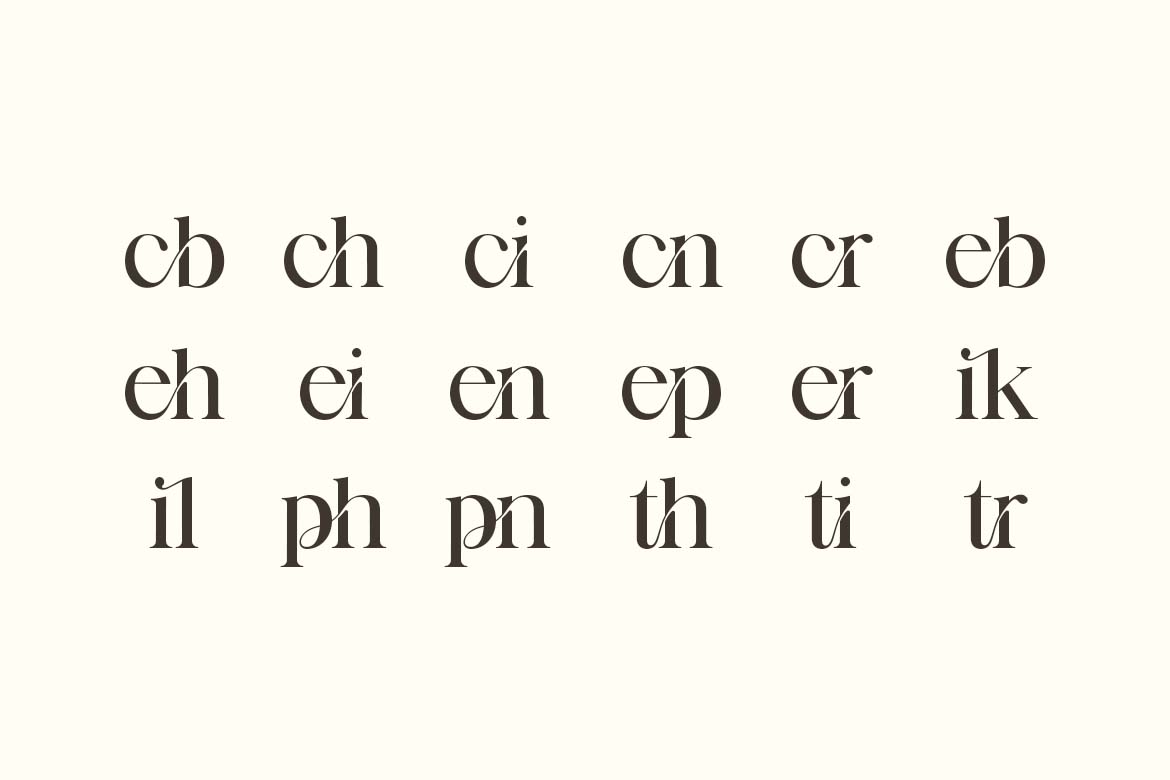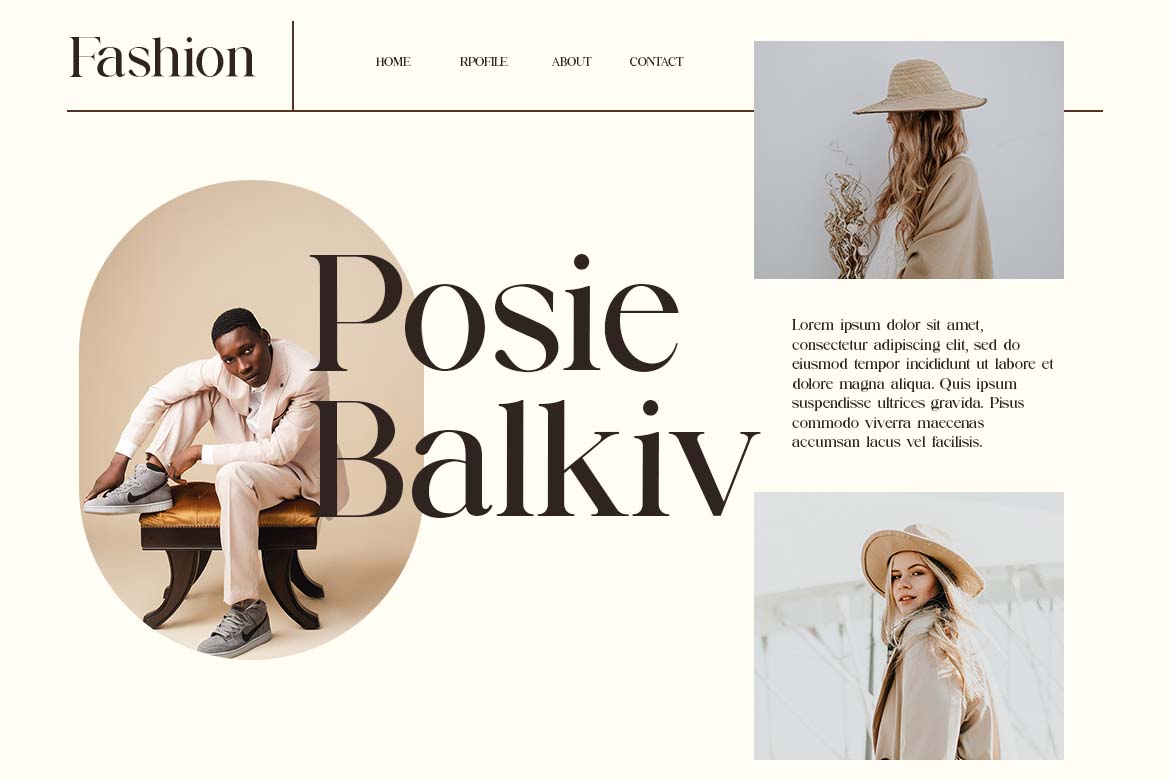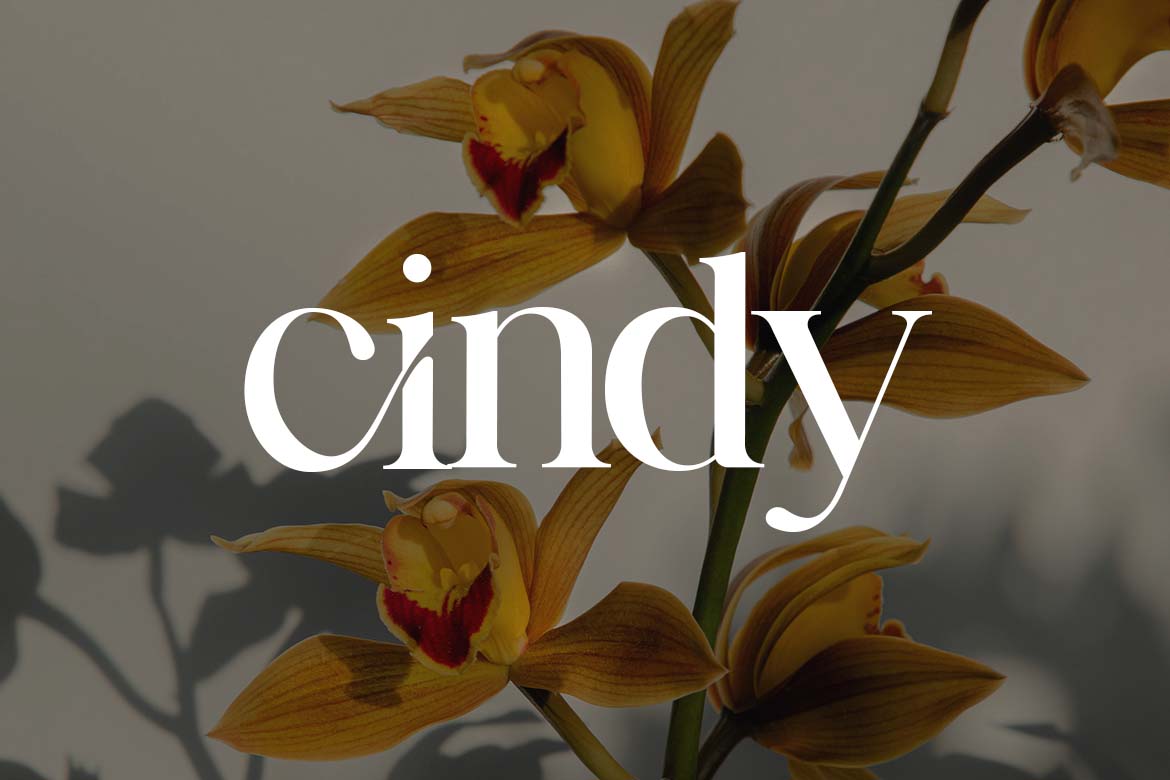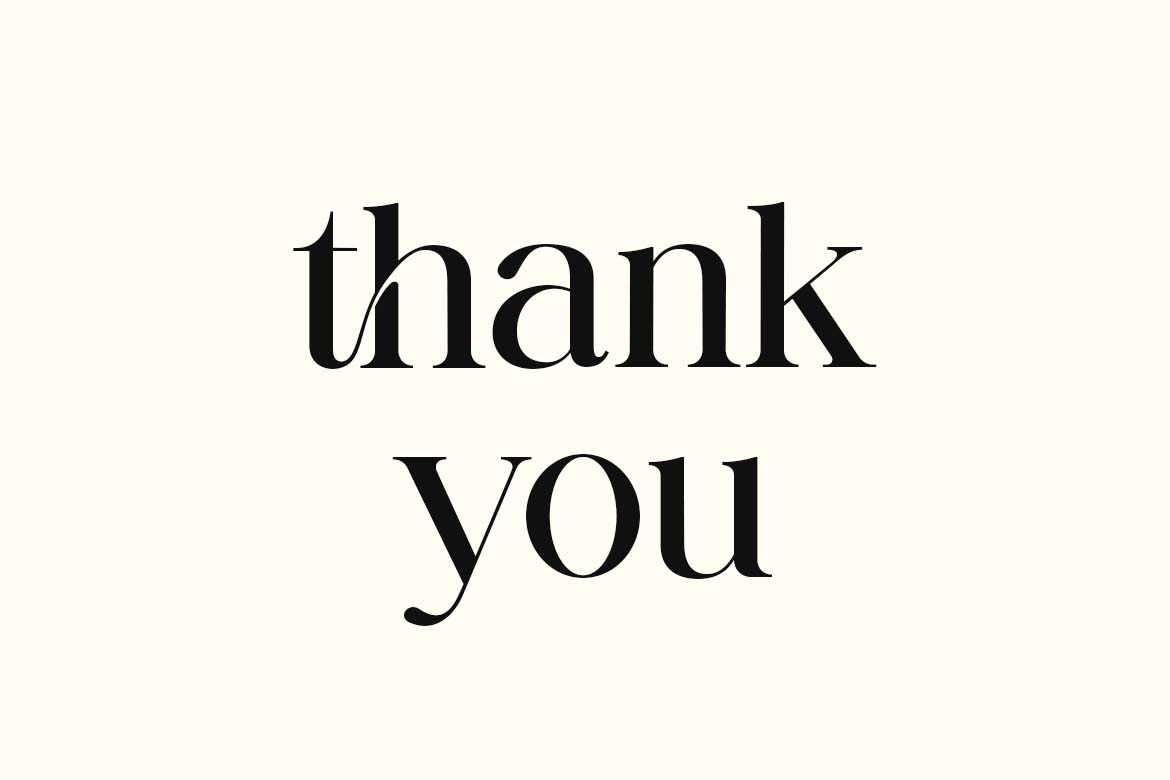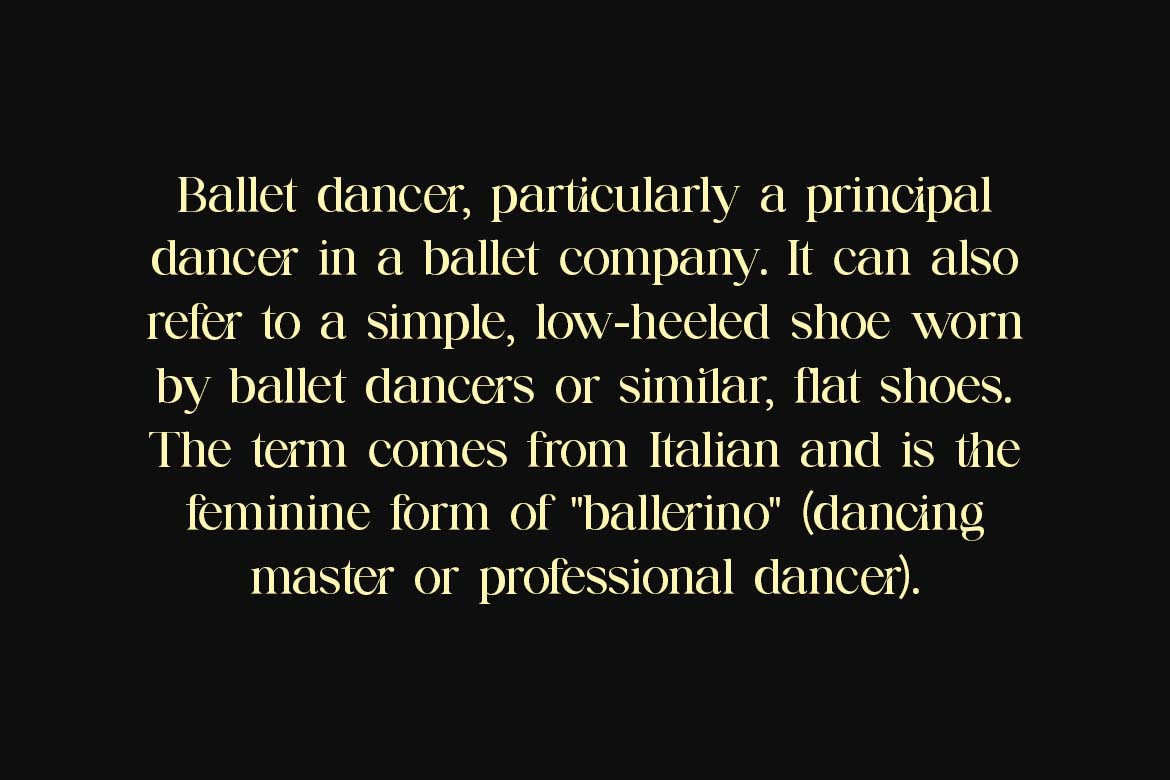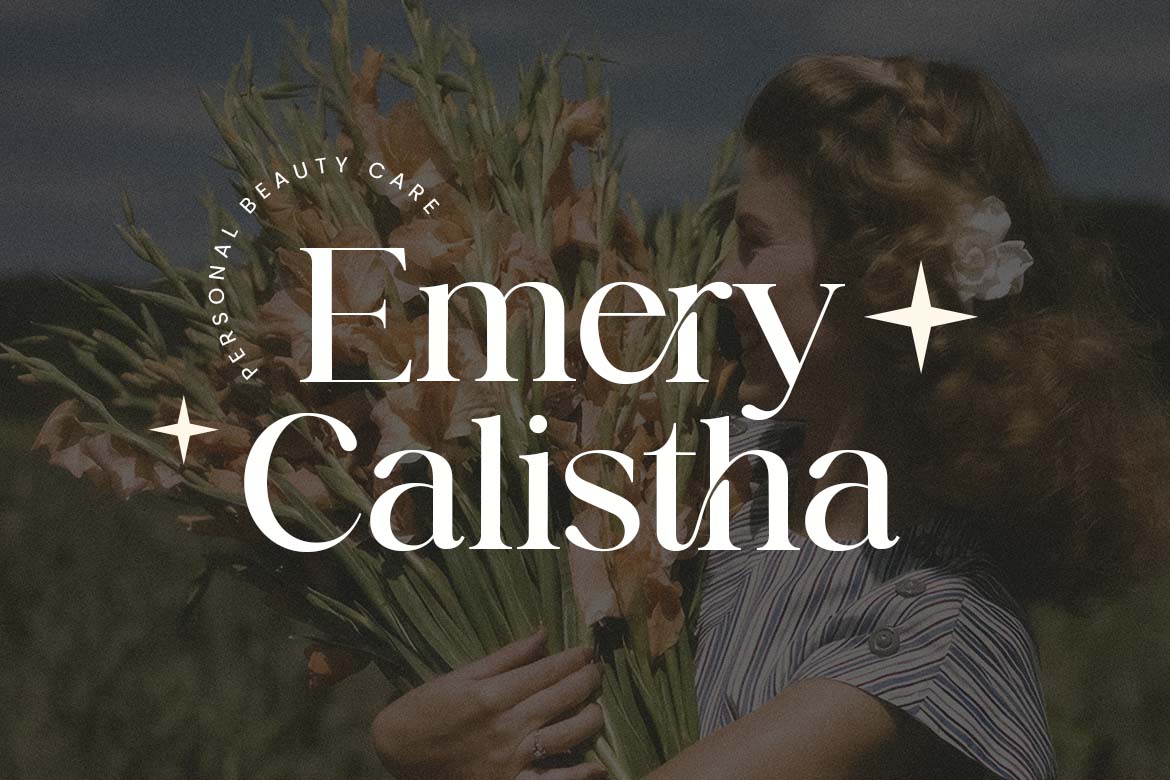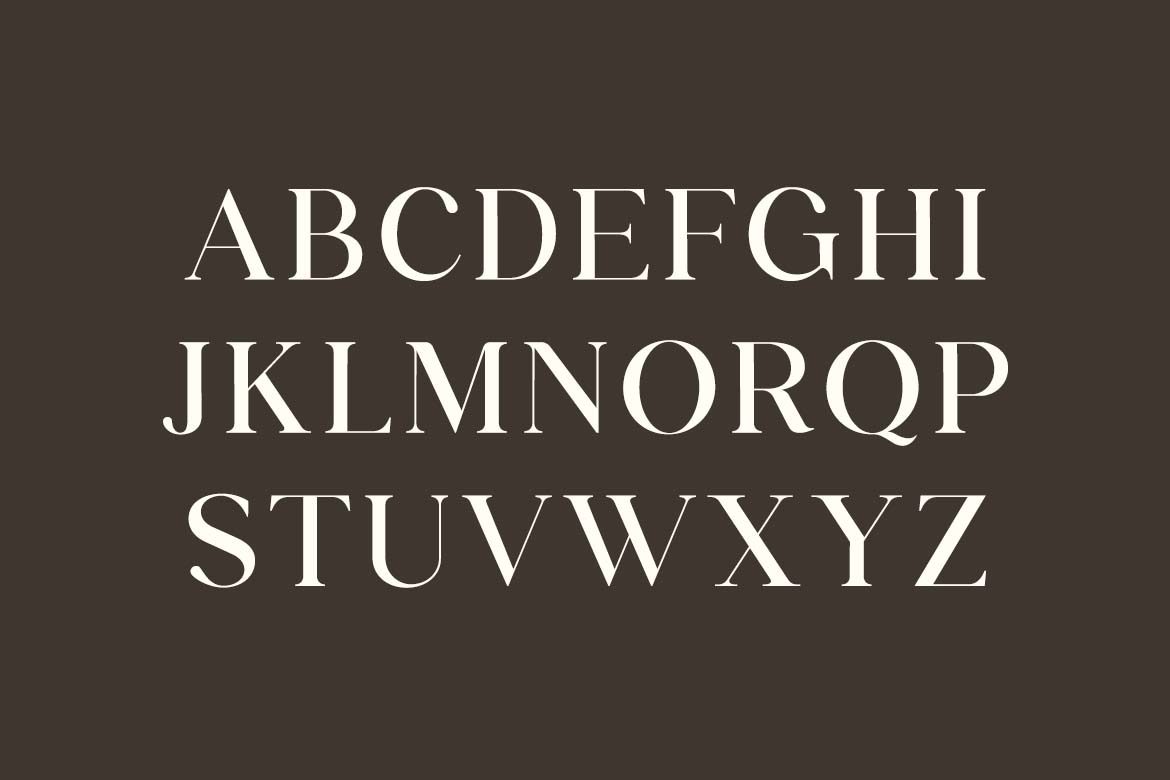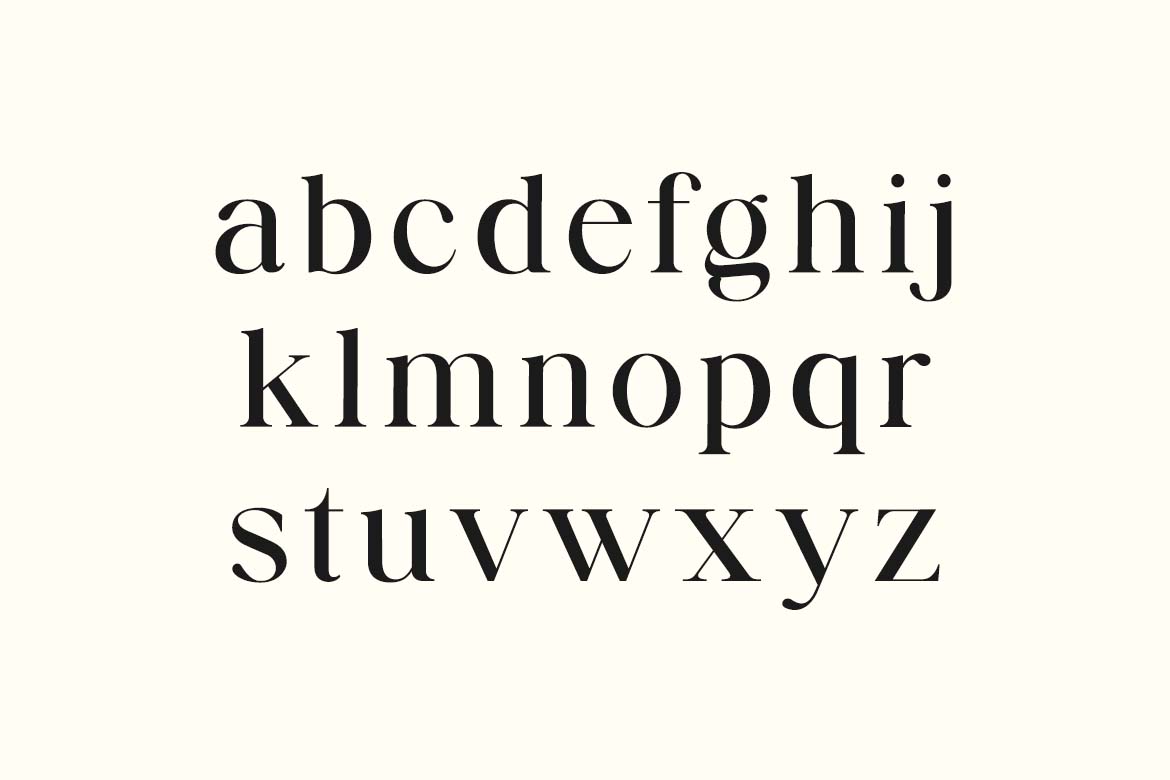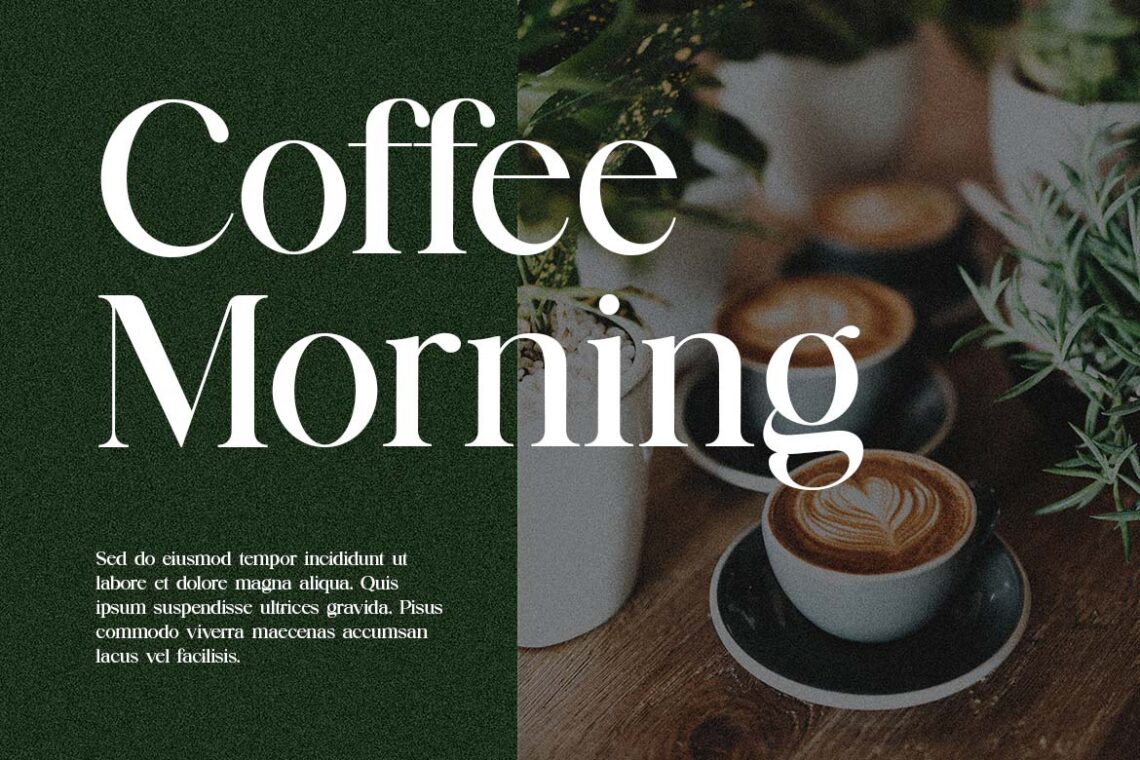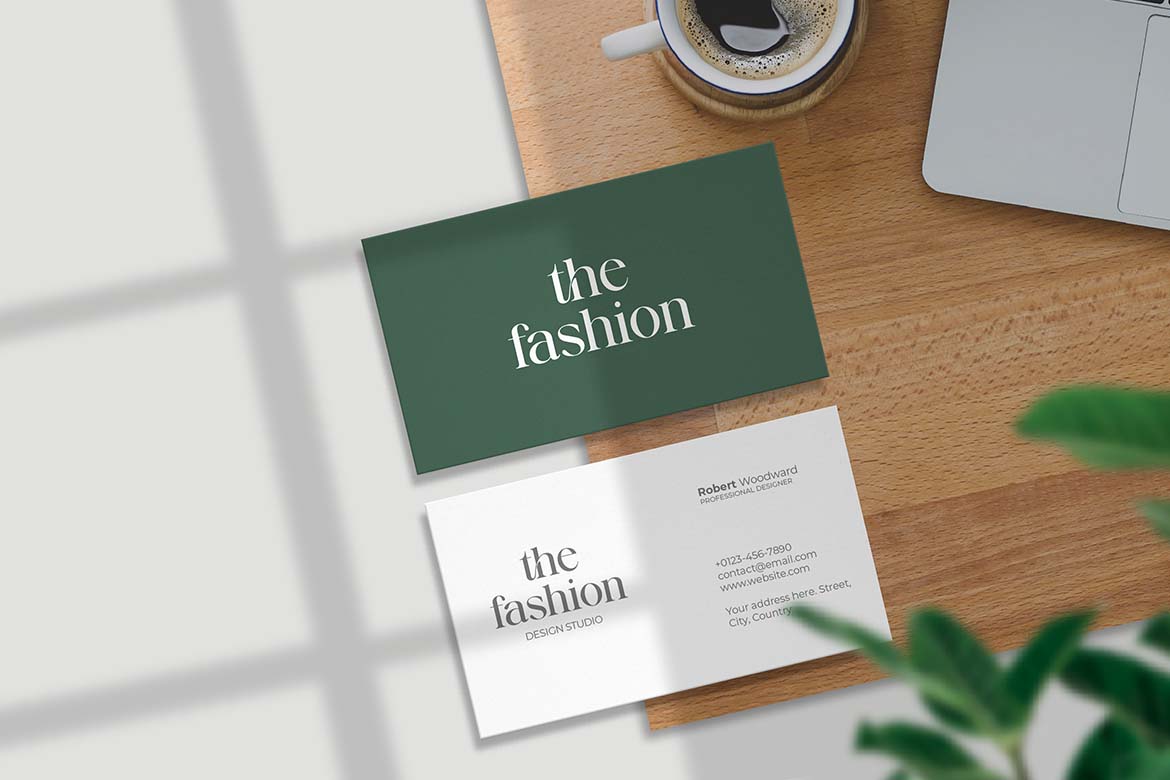
Dinner Junction Stylish Retro Serif Font
Dinner Junction Stylish Retro Serif Font. The modern display font feels beautiful classy, elegant, and stylish. This font is ideally suited for a wide variety of projects, such as signature, stationery, logo, wedding, typography quotes, magazine or book covers, website headers, branding, and more. Also, fashion-related branding or editorial design displays both masculine and feminine qualities.